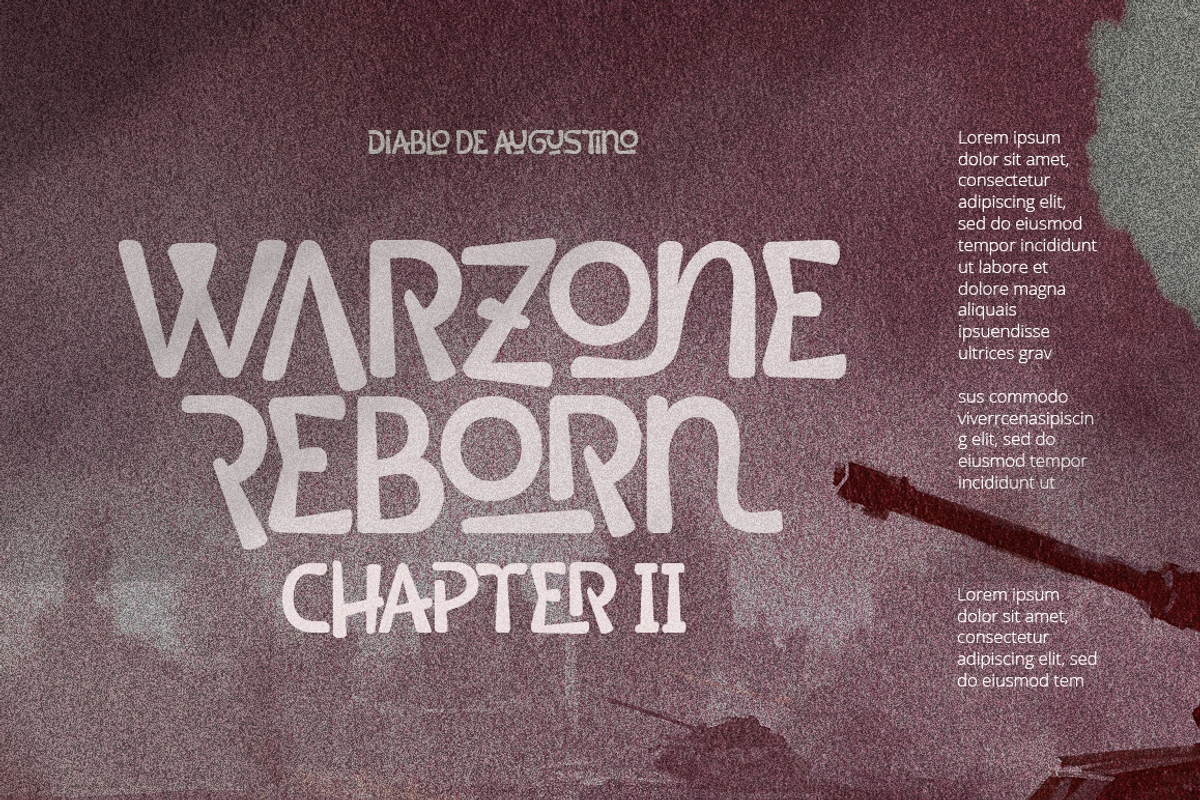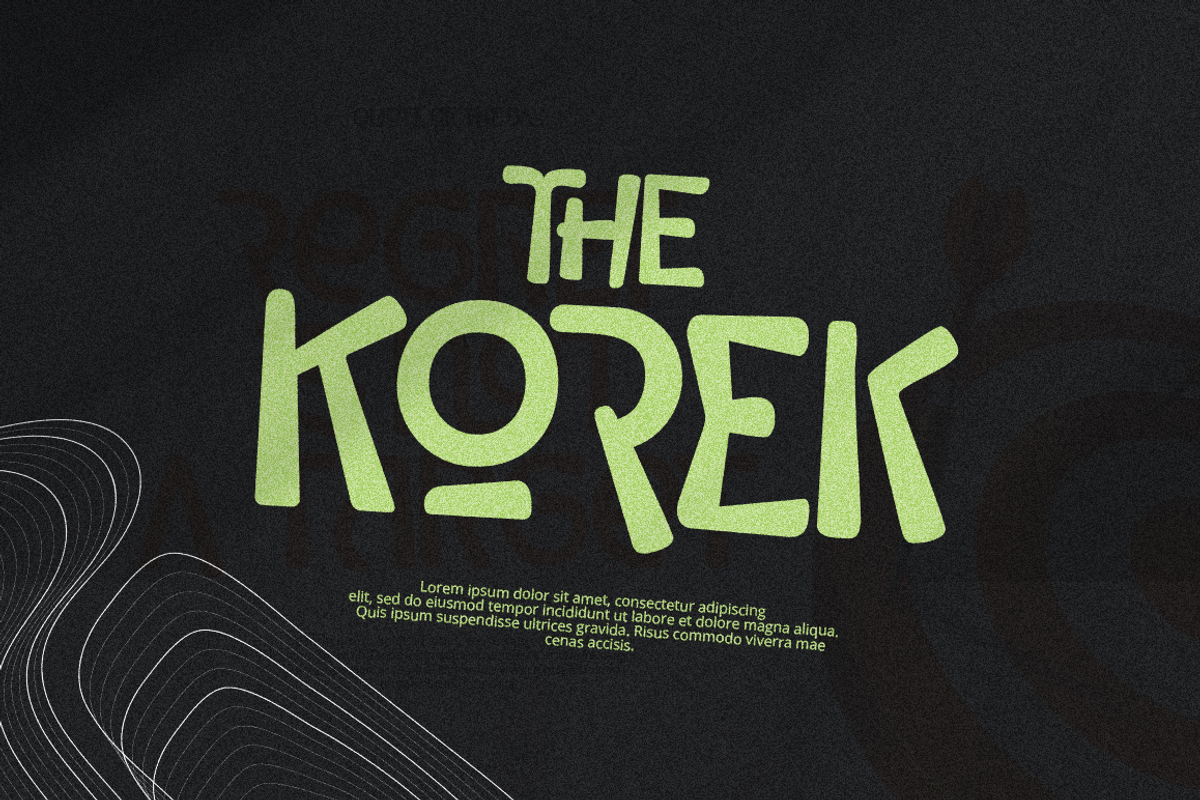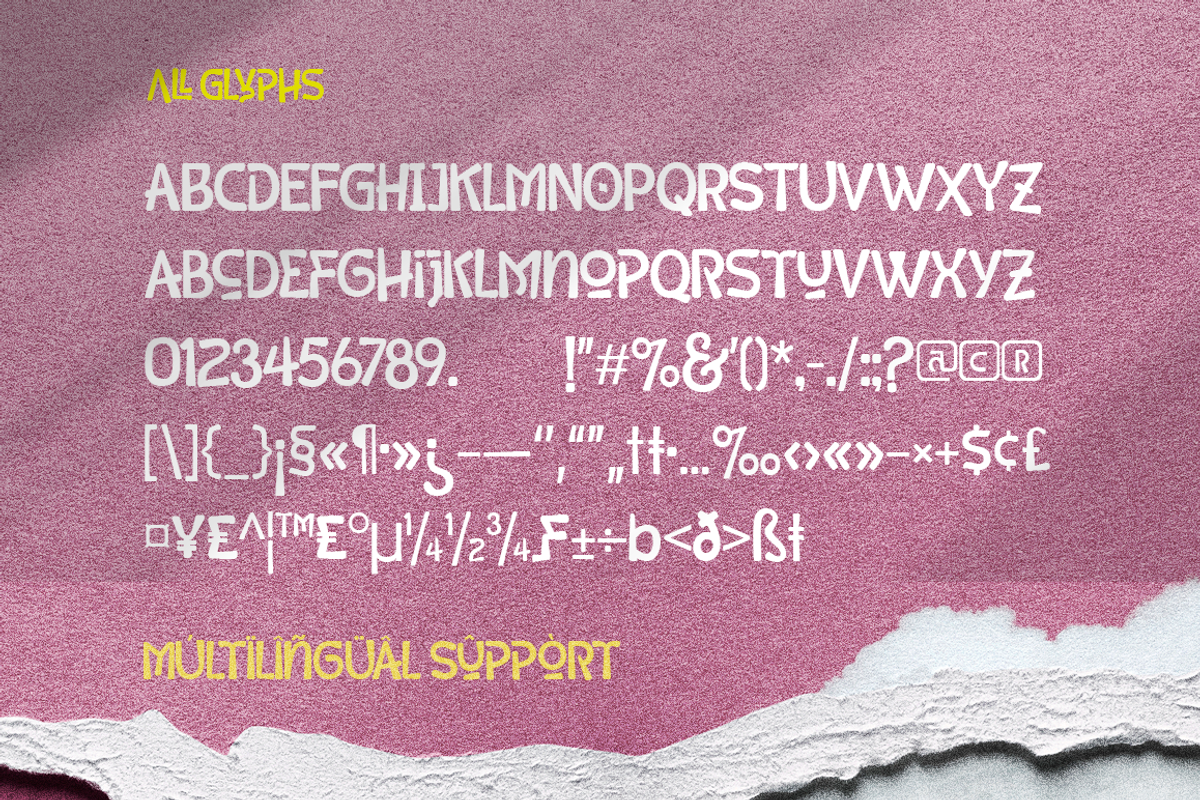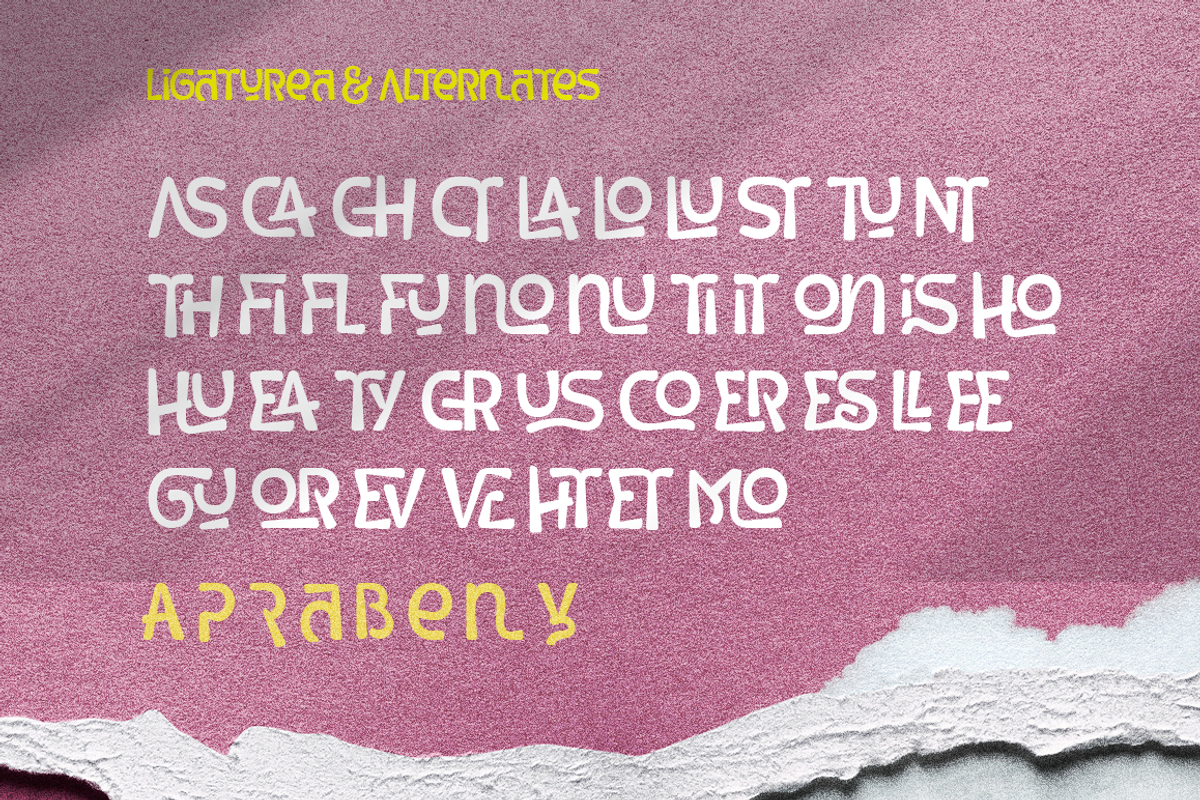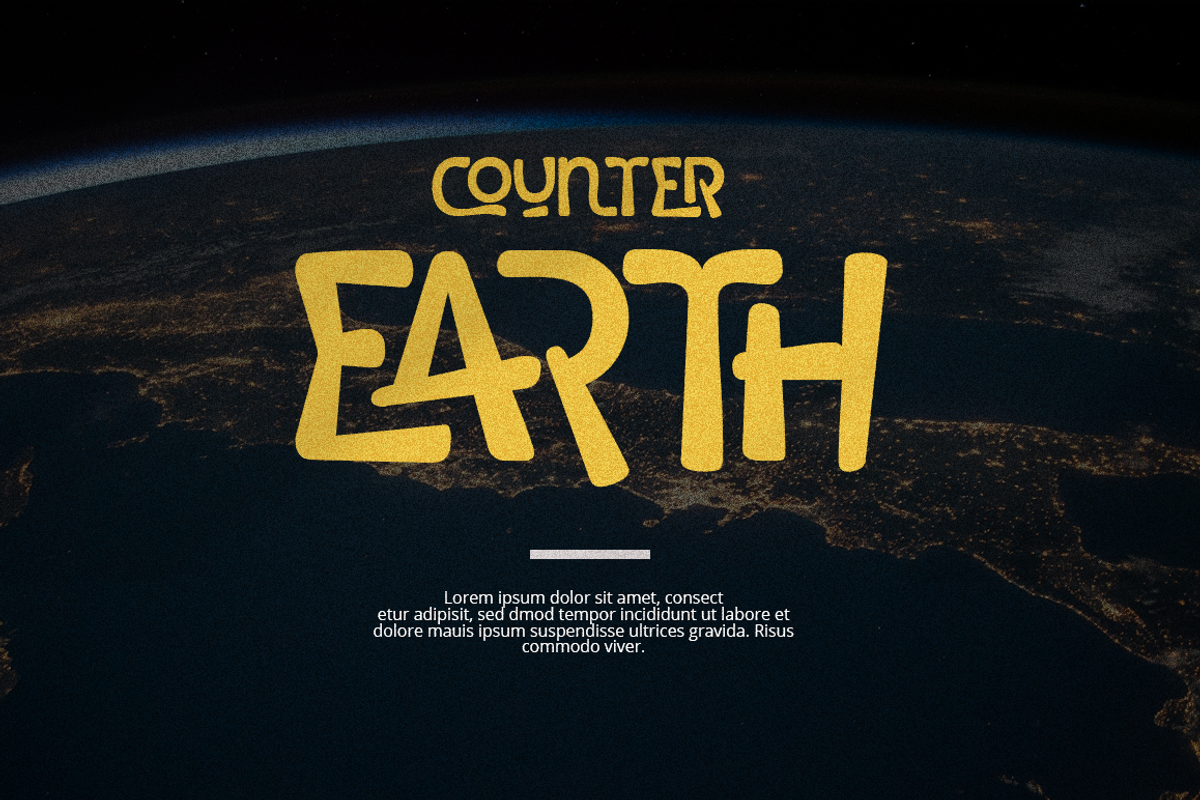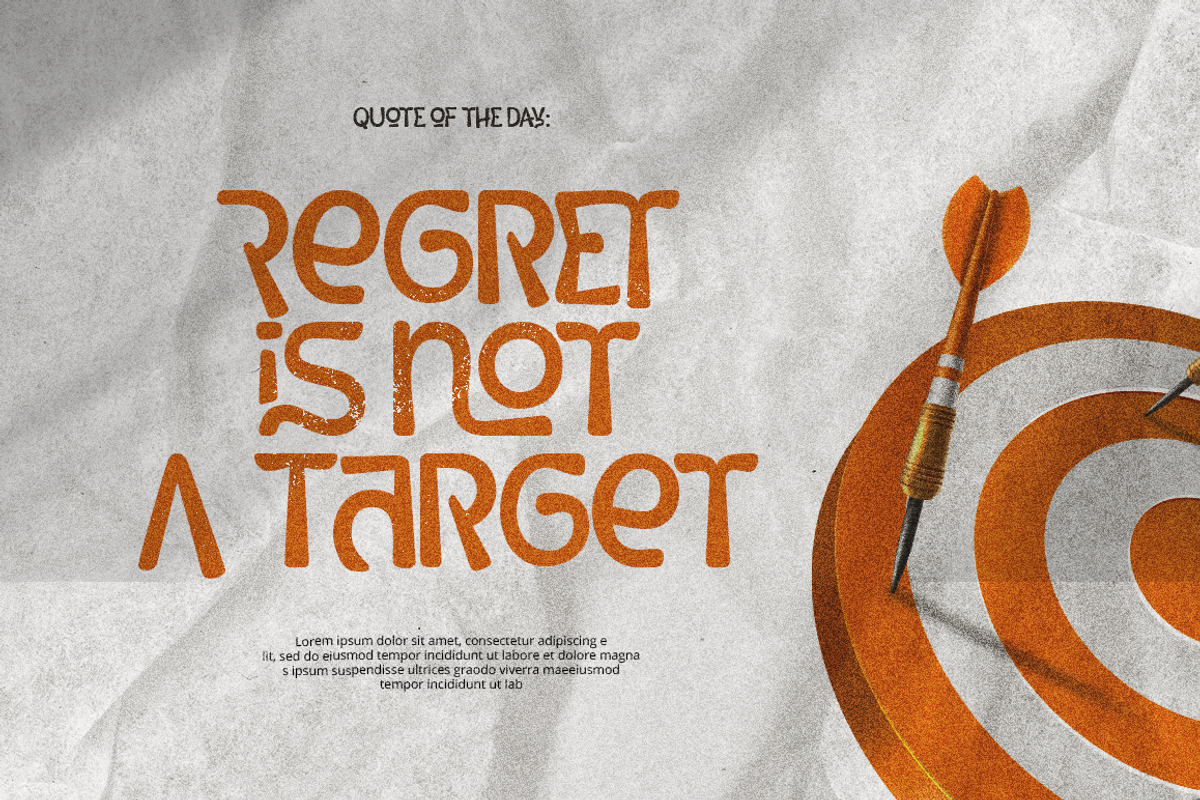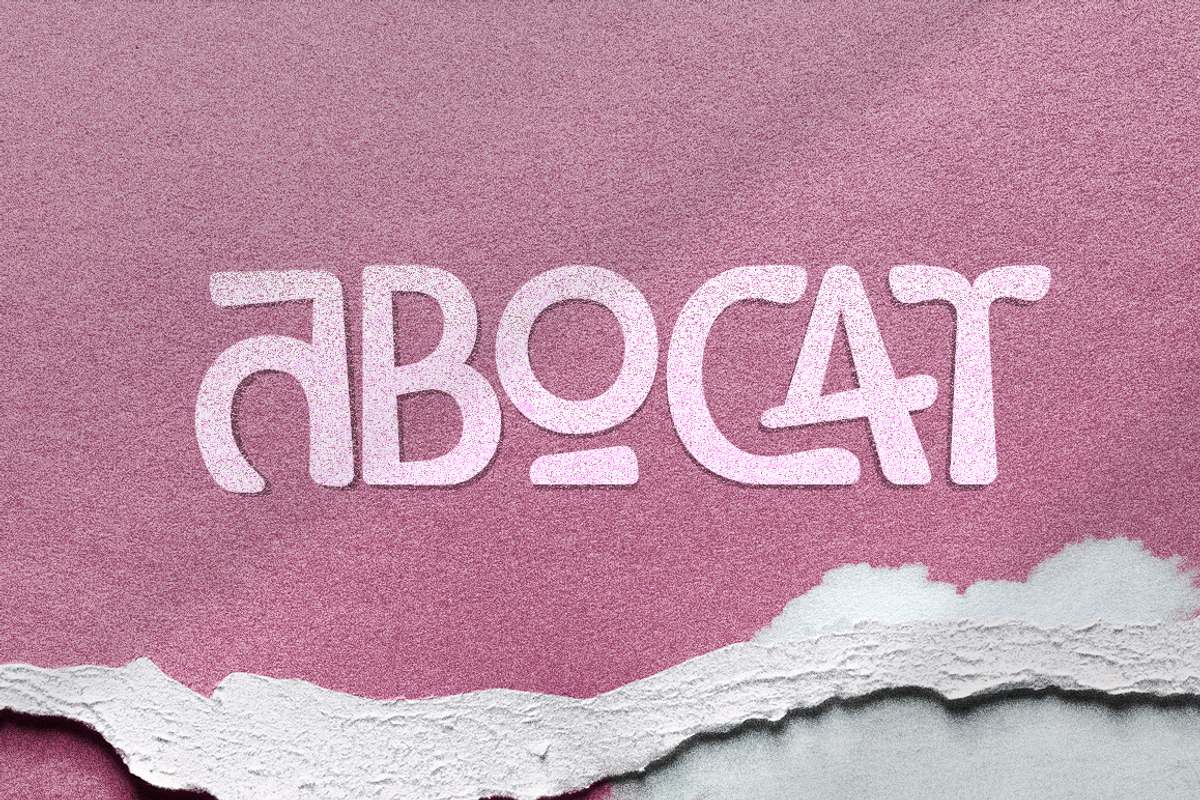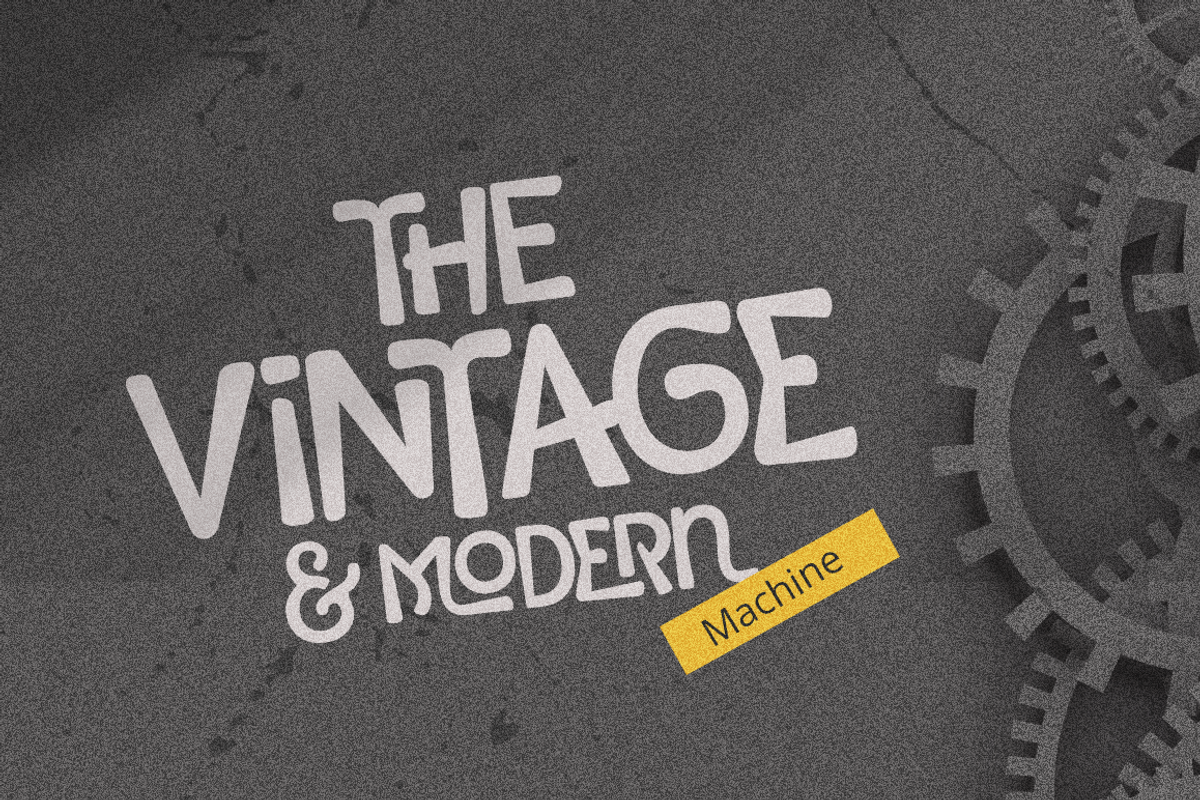
Abocat Font
Abocat is an authentic vintage Decorative font. It comes with unique shapes bold to thin and rounded edges that will give remarkable touch. The font equipped with more ligature and alternates which is perfect use for Branding, Logo Design, Lettering, Logotype, magazine, posters, book covers, photography and other design project.
Abocat Features:
- Uppercase glyphs
- Numeral and Punctuations
- Currencies